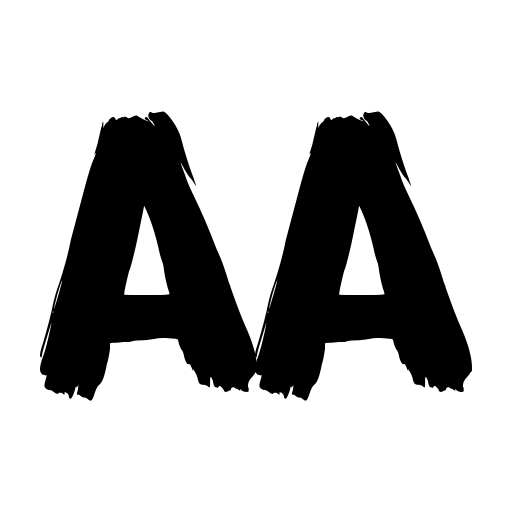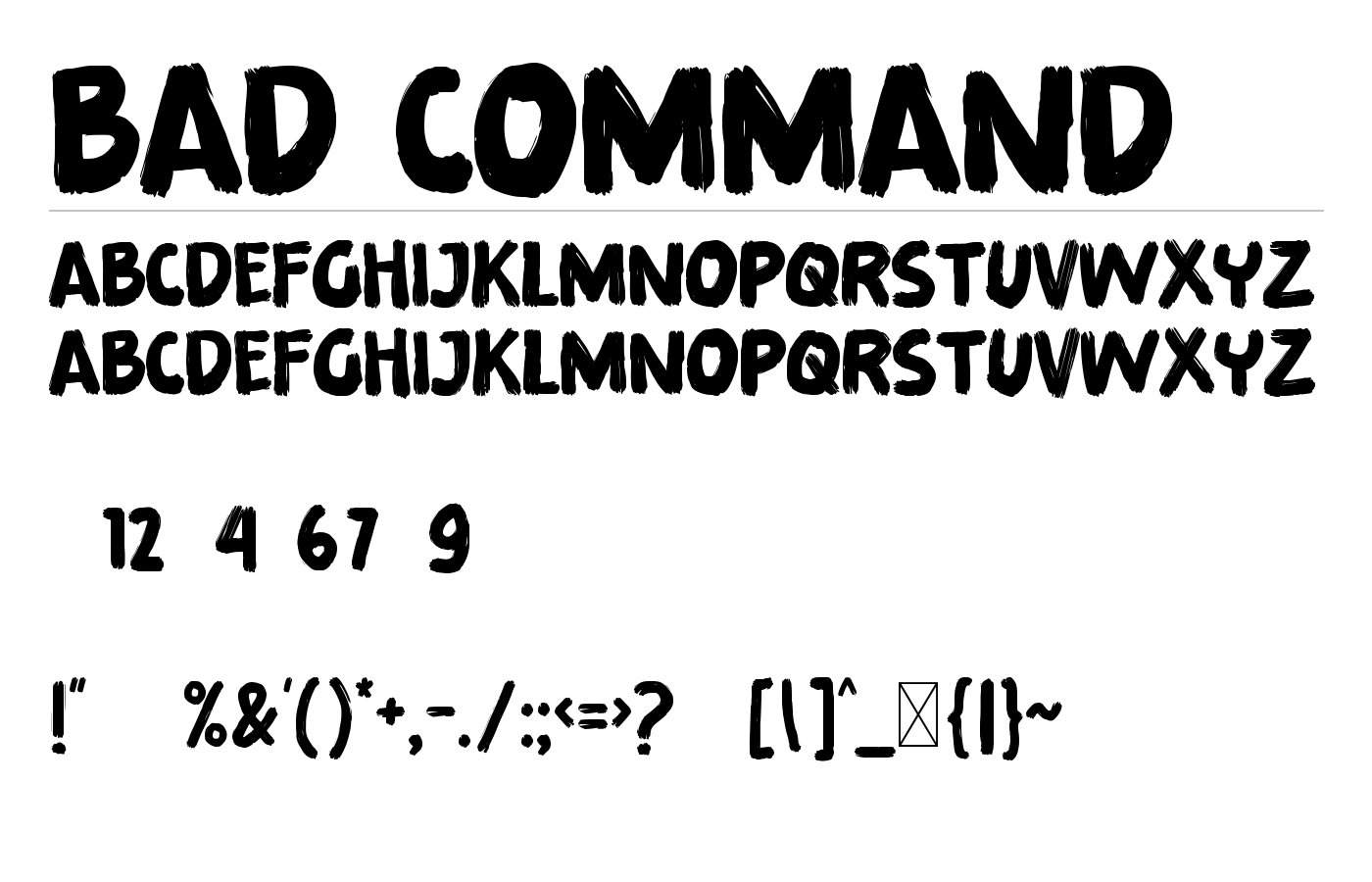
Bad Command is a bold, hand-drawn sans serif font with a rough, brushstroke texture that gives it an energetic and expressive feel. Its irregular edges and strong weight make it perfect for playful, informal designs like posters, comic titles, or casual branding where a dynamic and edgy personality is desired. This font works best in headlines or display use, adding a raw, creative touch that stands out with its unique, handcrafted style.
Bad Command Font
About Bad Command Font
| Font family | Bad Command Font |
| Designer | Anang F & Malik Wsn | Gassstype© Studio 2021 |